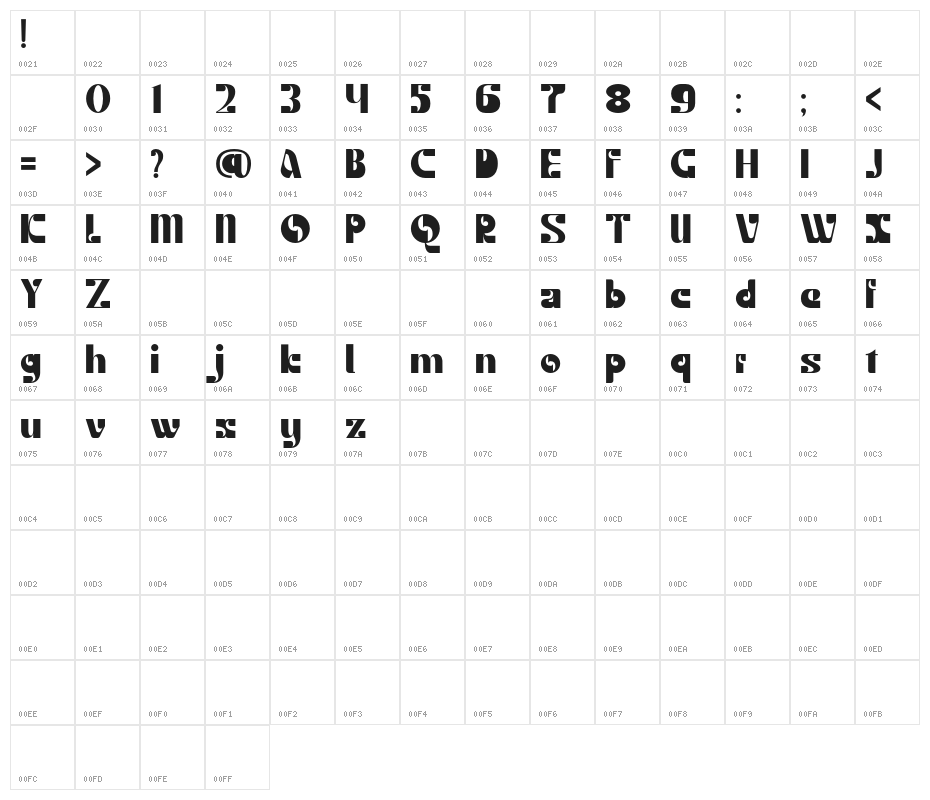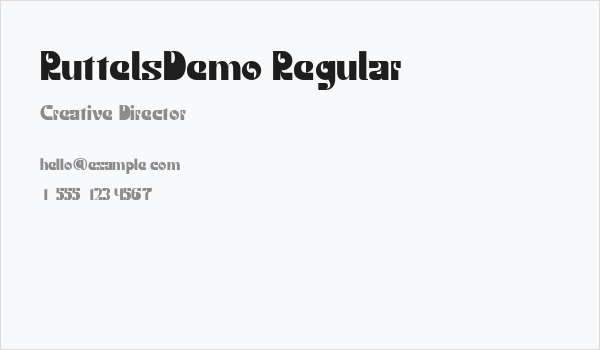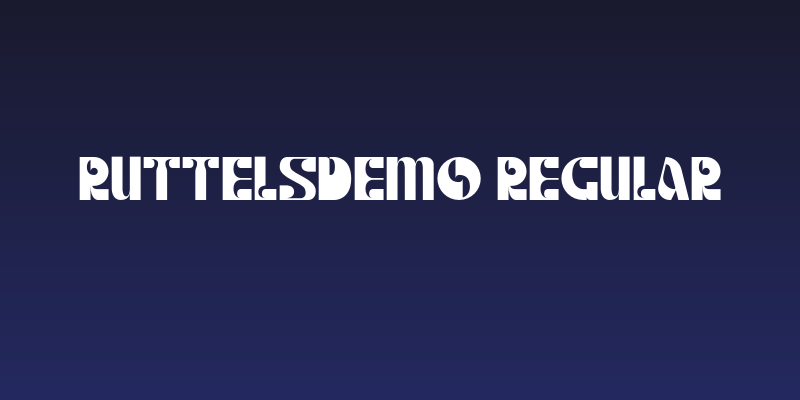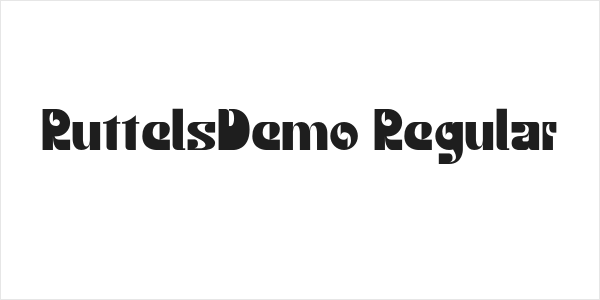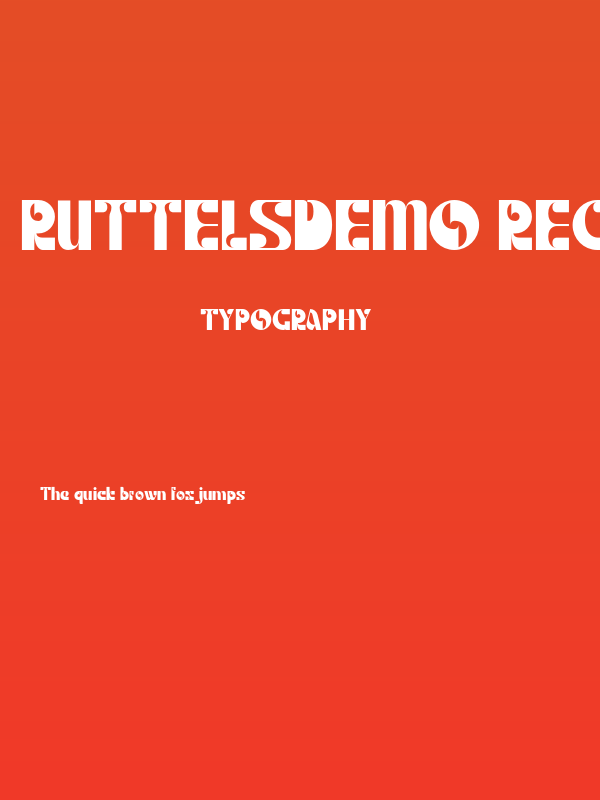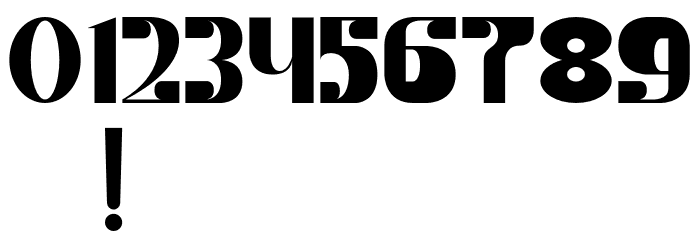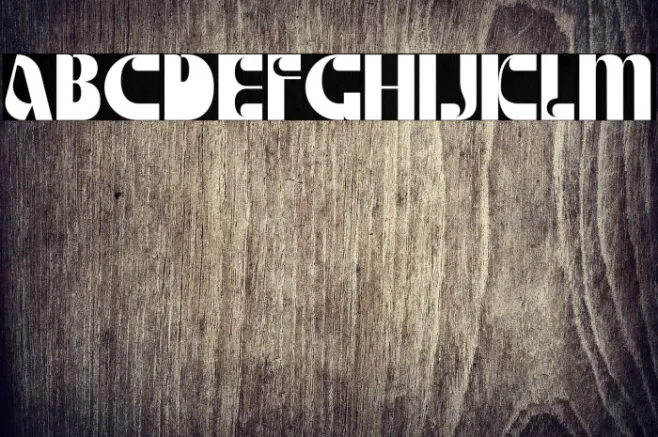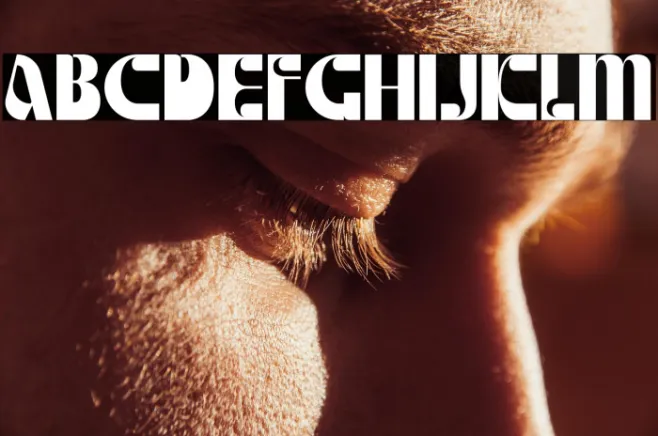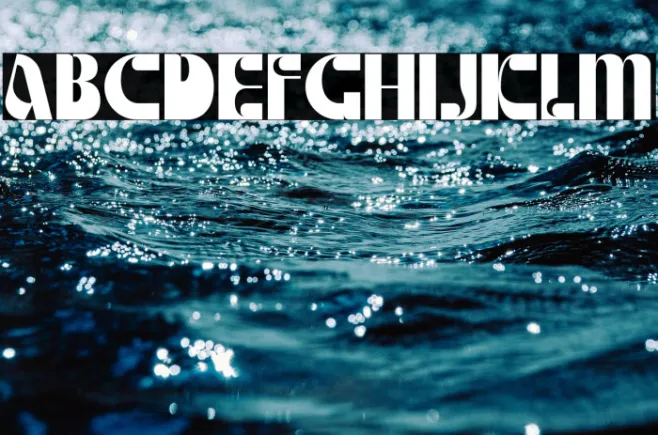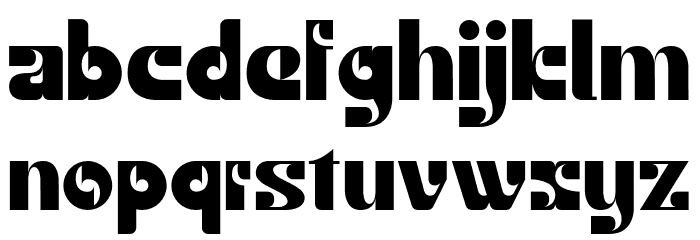
RuttelsDemo-Regular Font
RuttelsDemo-Regular Description
This font features a bold and striking design with a modern, geometric aesthetic. The characters are constructed with a combination of thick and thin strokes, creating a high contrast that draws attention. The uppercase letters have a unique, almost stencil-like appearance with sharp angles and curves, while the lowercase letters maintain a consistent style that complements the uppercase. The numerals and special characters follow the same design principles, ensuring a cohesive look across all glyphs. This font's distinct style makes it ideal for projects that require a strong visual impact.
| Proposed Projects | Ideal for branding, posters, headlines, and any design project that requires a bold statement. |